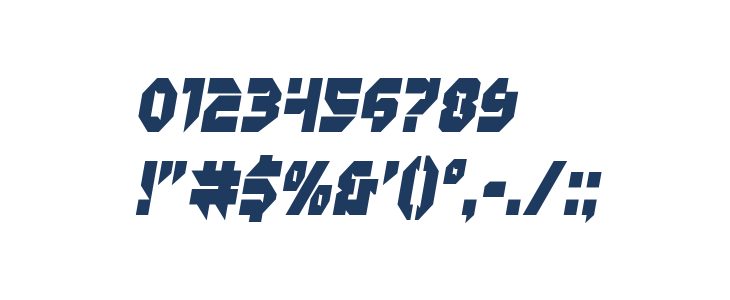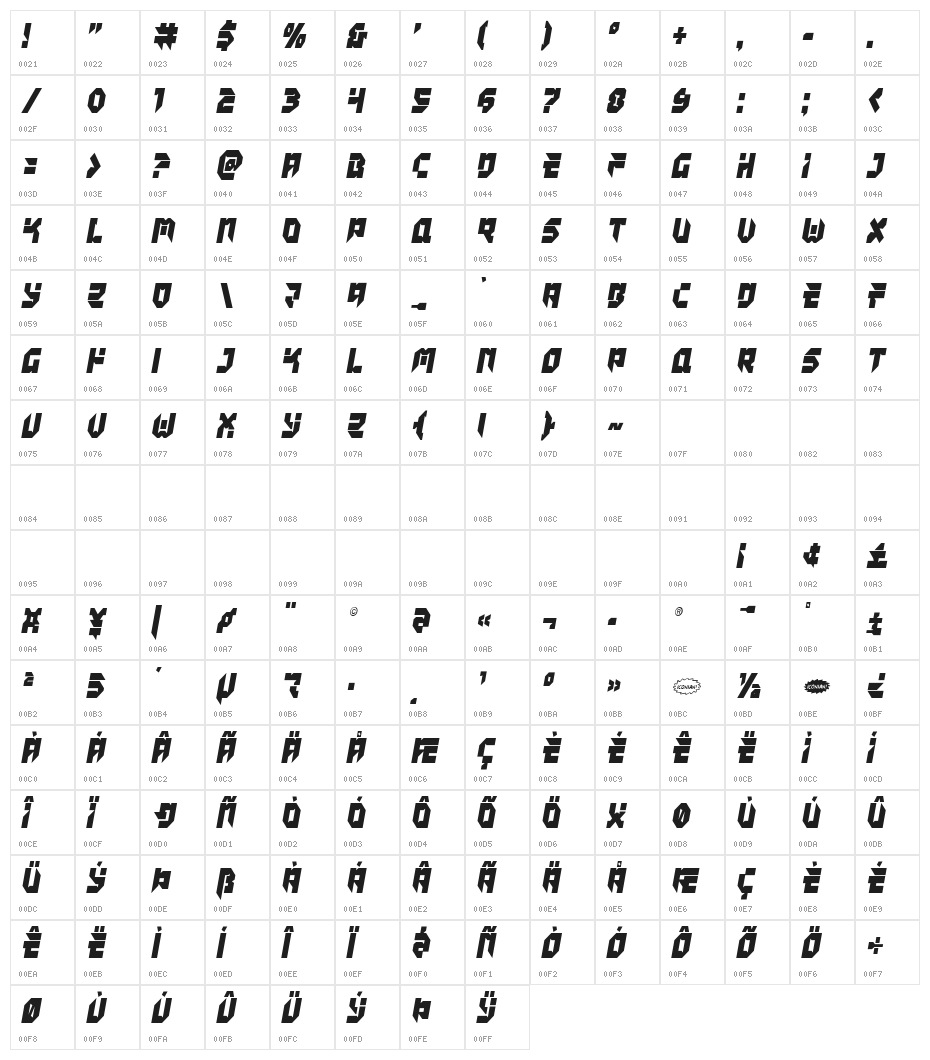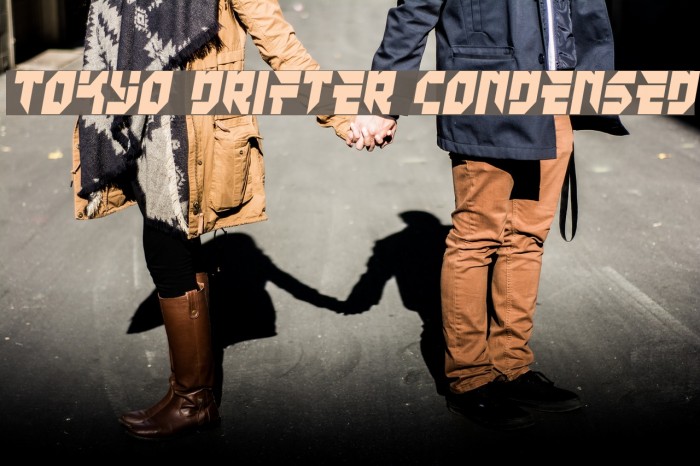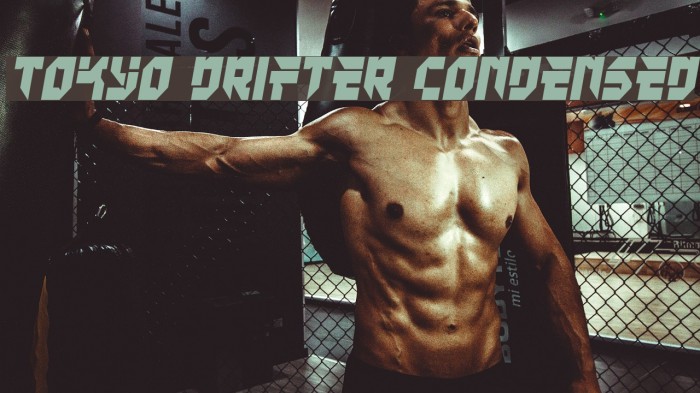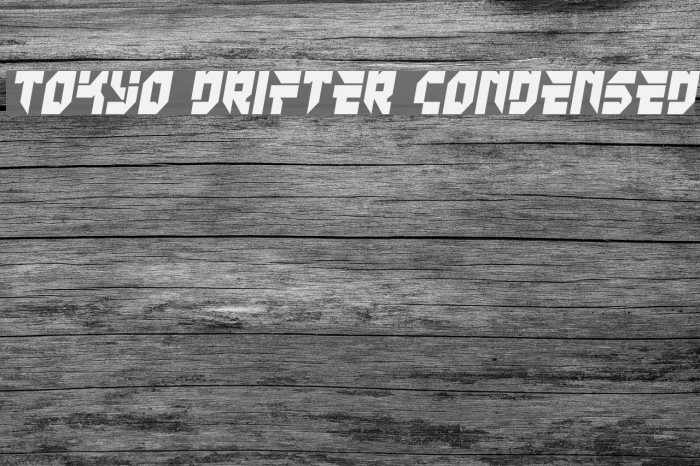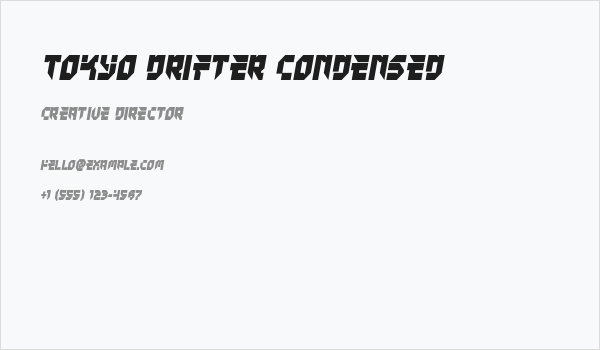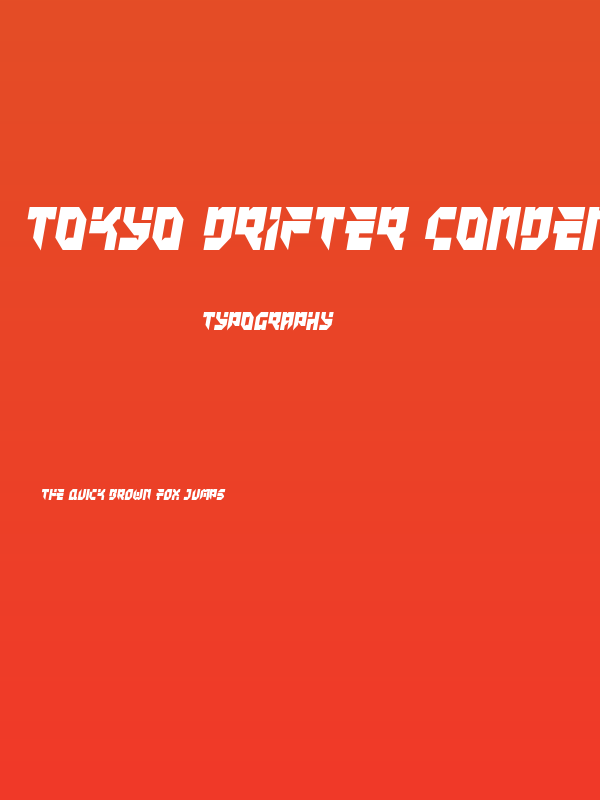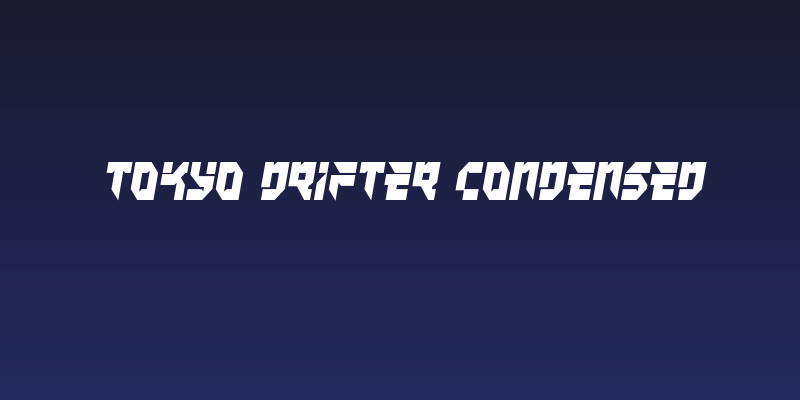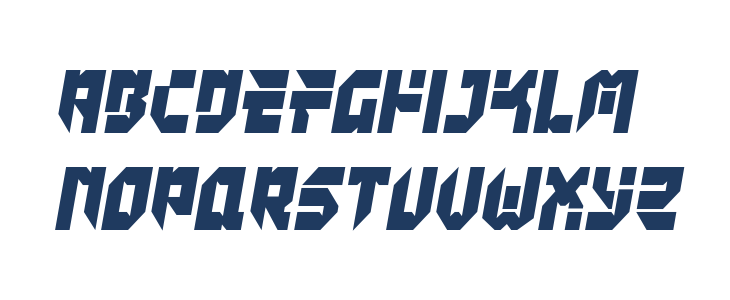
Tokyo Drifter Condensed Font
Tokyo Drifter Condensed Description
This font features a bold, angular design with a futuristic and dynamic appearance. The characters are sharply cut with geometric precision, creating a sense of movement and energy. The condensed style enhances its impact, making it ideal for attention-grabbing headlines or titles. Each letter is distinct, with unique cuts and angles that contribute to its modern aesthetic. The numbers and special characters maintain this cohesive style, ensuring a consistent look across all text elements. The font's boldness and sharp edges make it stand out, while its condensed form allows for efficient use of space.
Proposed ProjectsIdeal for sci-fi themed projects, video game titles, posters, and branding that requires a modern and edgy look.